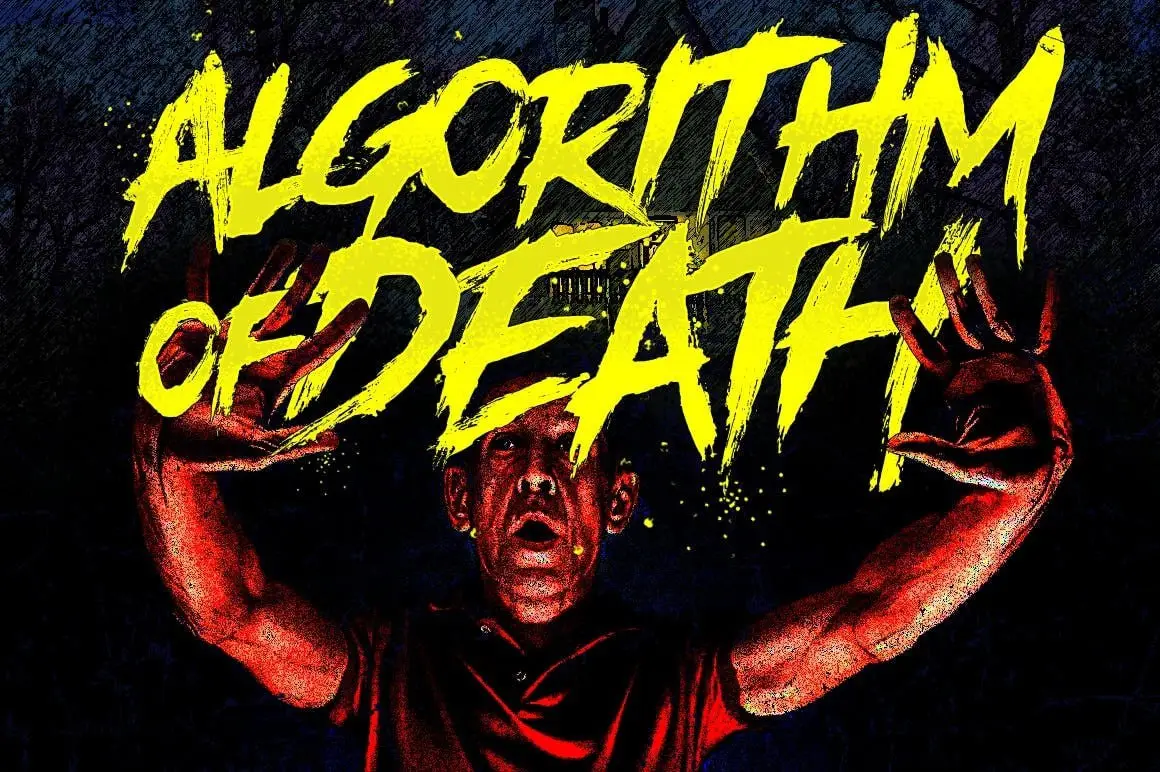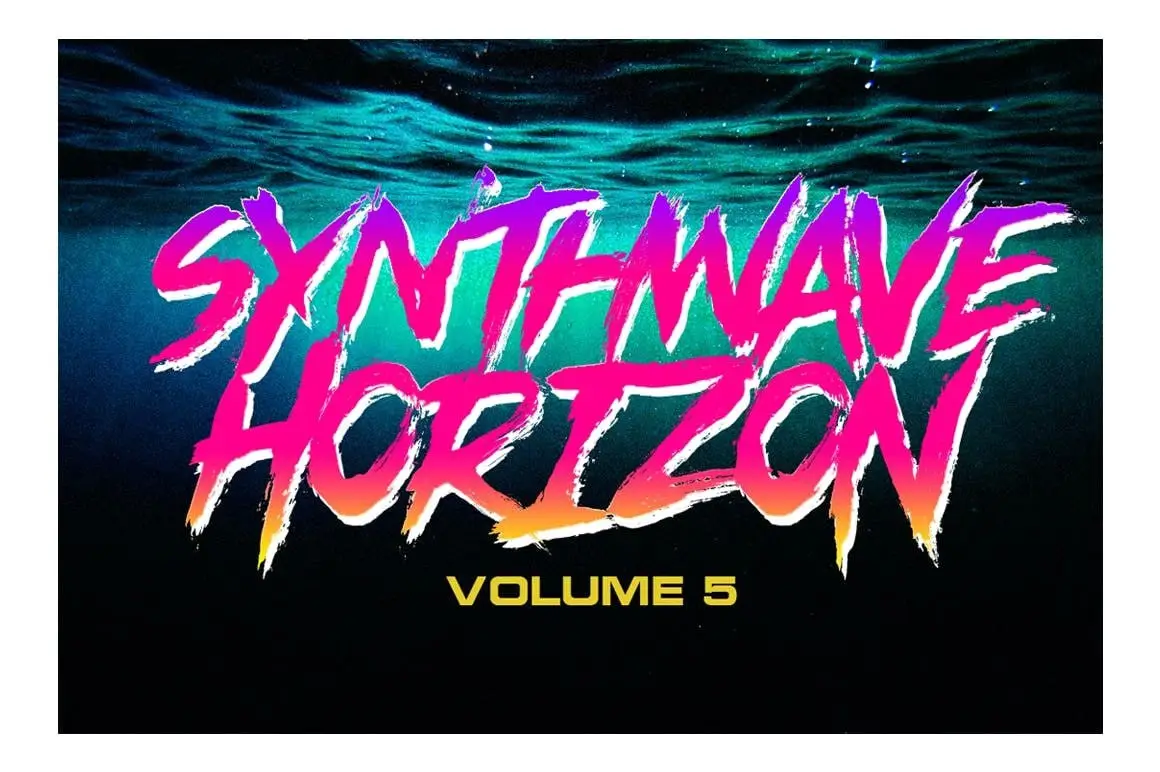
The Lethal Craze Font by Thebrandedquotes is a striking typeface designed to make a bold statement. With its unique character shapes and edgy style, this font is perfect for projects that require a modern and dynamic touch.
- Stylish and contemporary design
- Uppercase and lowercase letters
- Numerals and punctuation included
- Styles: Display, Script
- Ideal for branding, logos, and promotional materials
- Great for web design and UI elements
- Perfect for print projects such as posters and flyers